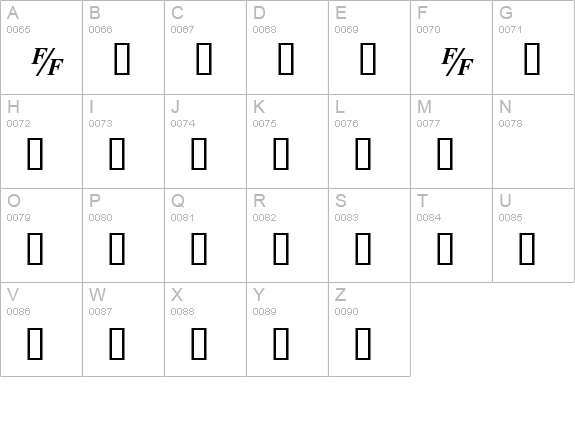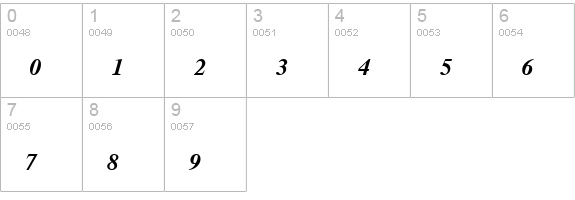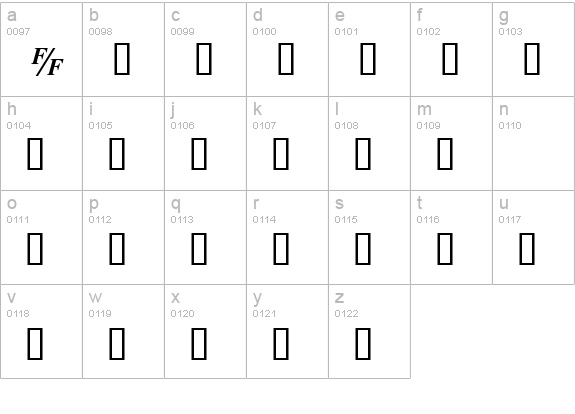
TmsFB BoldItalic Font Details
TmsFB BoldItalic font is a stunning display typeface that exudes elegance and sophistication. Its bold and italic style adds a touch of drama and flair to any design project. With its perfectly balanced curves and intricate details, this font captures attention and commands a strong presence. Designed for those who want to make a bold statement, TmsFB BoldItalic font is perfect for headlines, logos, posters, and any other creative projects that require a powerful and eye-catching typography. Its versatility allows it to be used in both digital and print media, making it an essential tool for graphic designers, typographers, and artists. But what sets TmsFB BoldItalic font apart is that it is not only visually stunning, but also free to download. Yes, you read that right – this extraordinary font is freely available at FontsMarket.com. So whether you're a professional designer or a hobbyist, you can now have access to this exceptional font without breaking the bank. Unlock your creativity and elevate your designs with TmsFB BoldItalic font. Its bold and italic style will add a touch of sophistication to your projects, making them stand out from the crowd. Download this remarkable font today from FontsMarket.com and see how it transforms your work into a masterpiece.